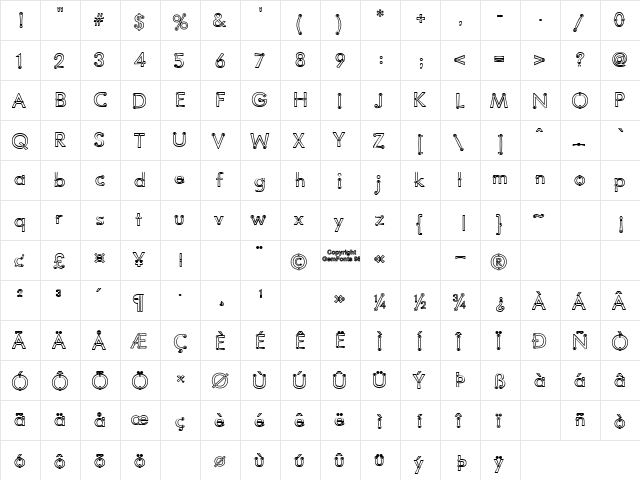
Blacksmith Delight Outlined Regular
Design Context for Blacksmith Delight Outlined Typeface
Blacksmith Delight Outlined is built around its visual character rather than neutral utility — its distinctive forms are designed to make an impression at display sizes. The delicate stroke weight brings airiness and refinement to layouts.
Font Pairing: Pair with a clean neutral sans-serif for body copy to let Blacksmith Delight Outlined's character lead without overwhelming the composition.
Pro Tip: Use Blacksmith Delight Outlined exclusively at display sizes — it was designed to be seen, not read at length. Let a neutral companion handle body copy.